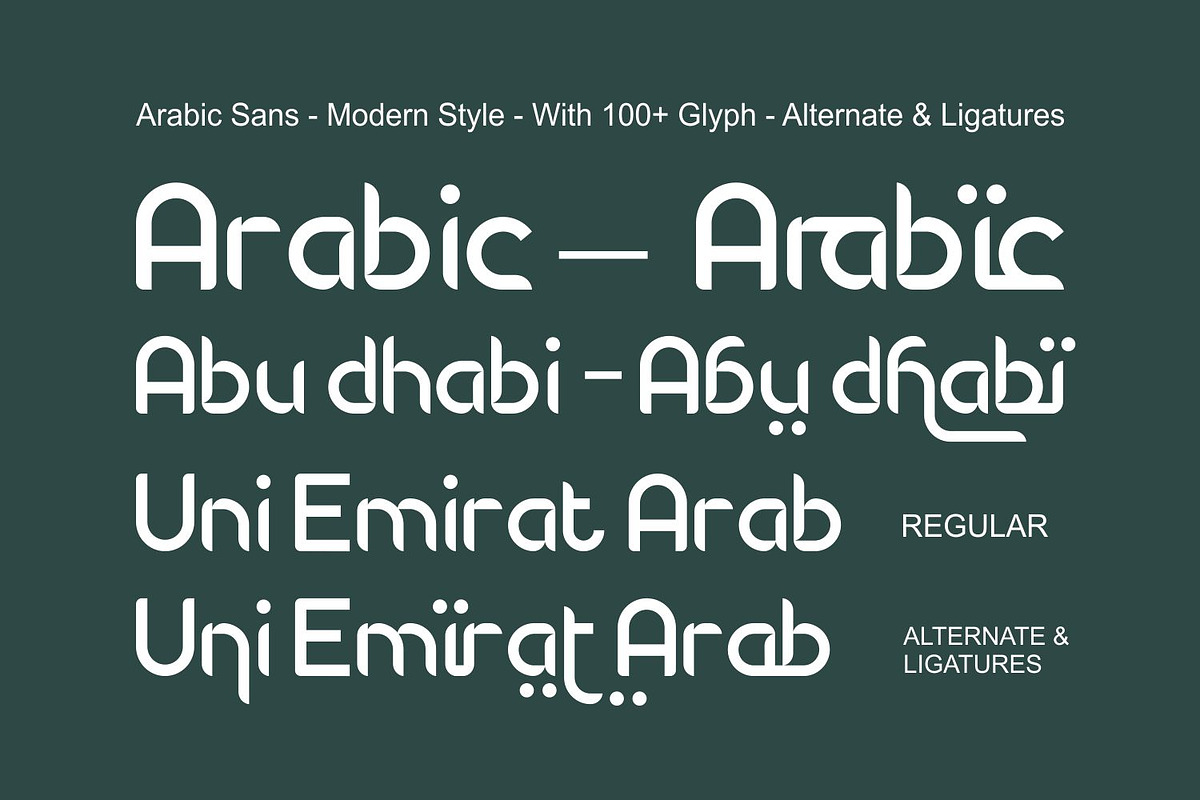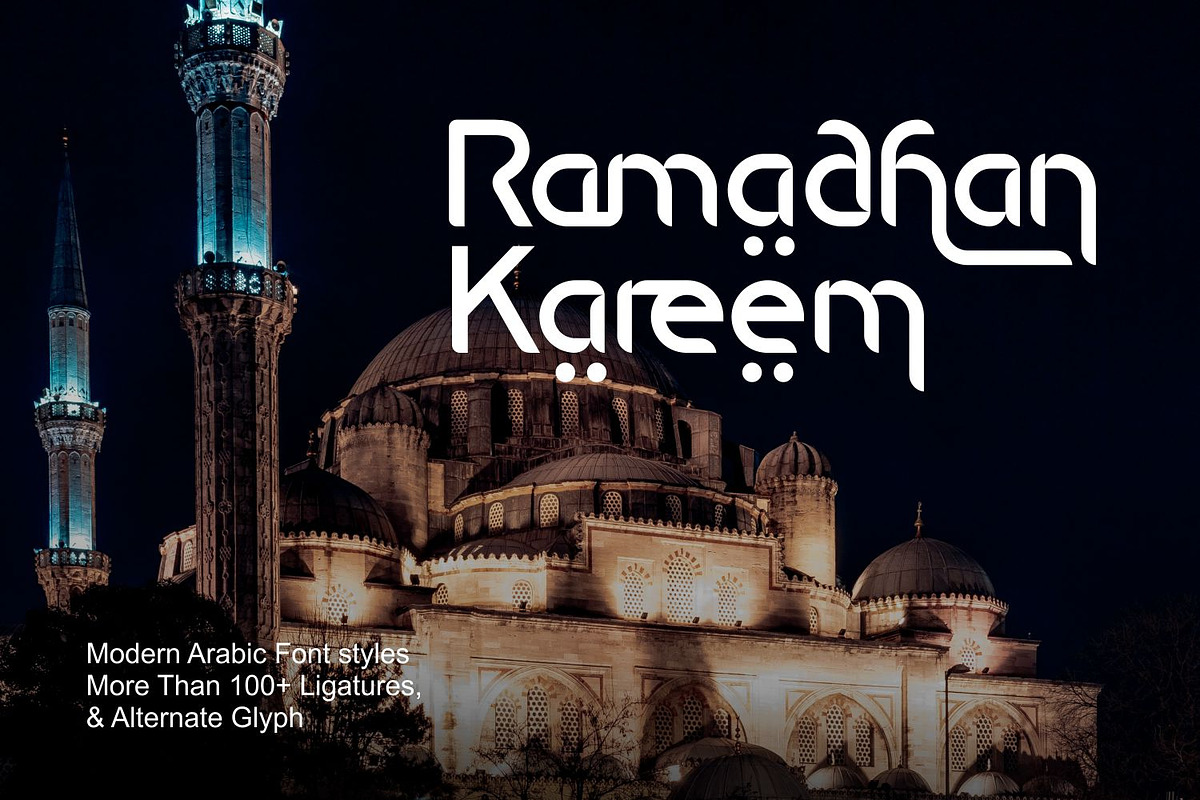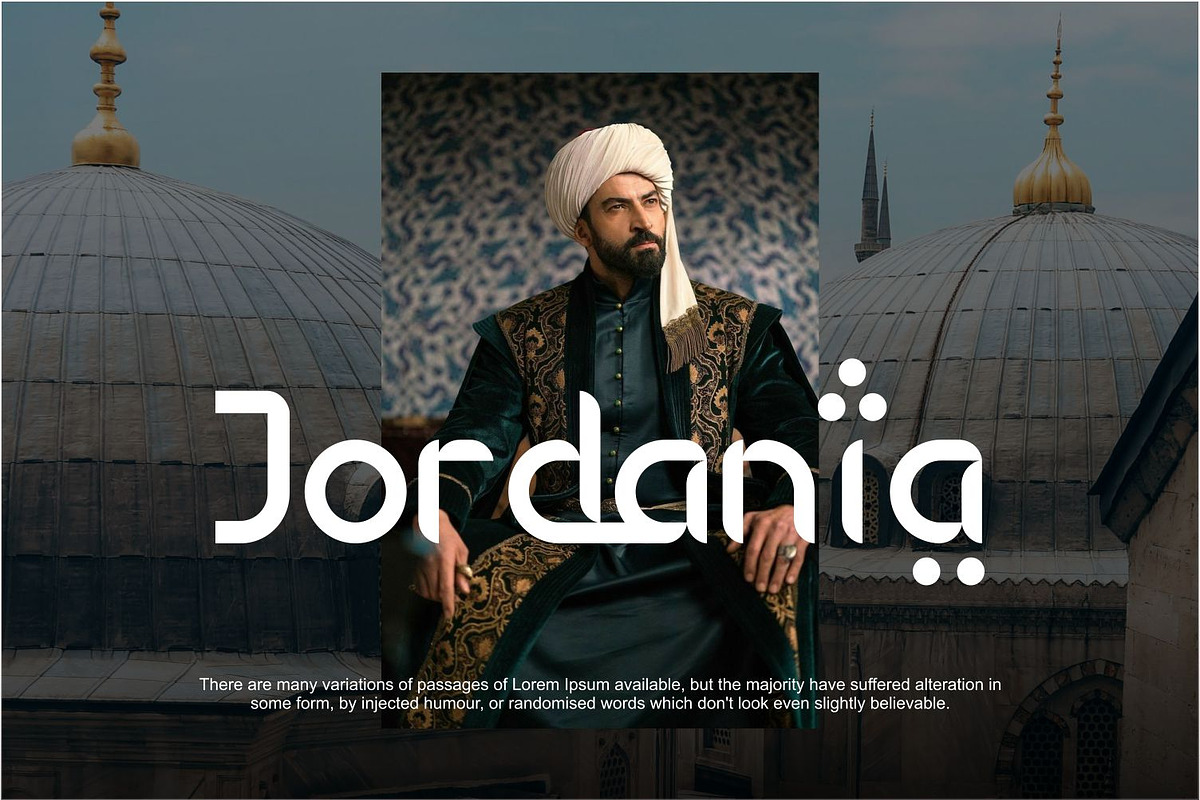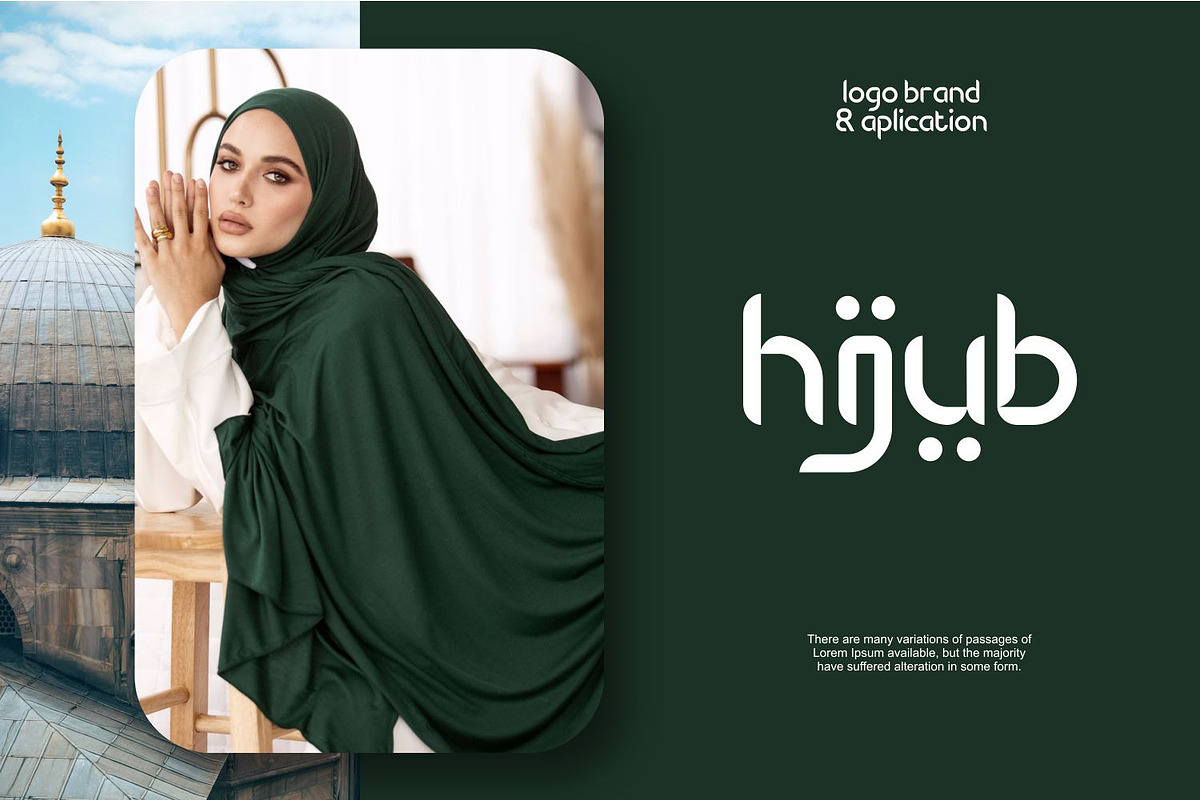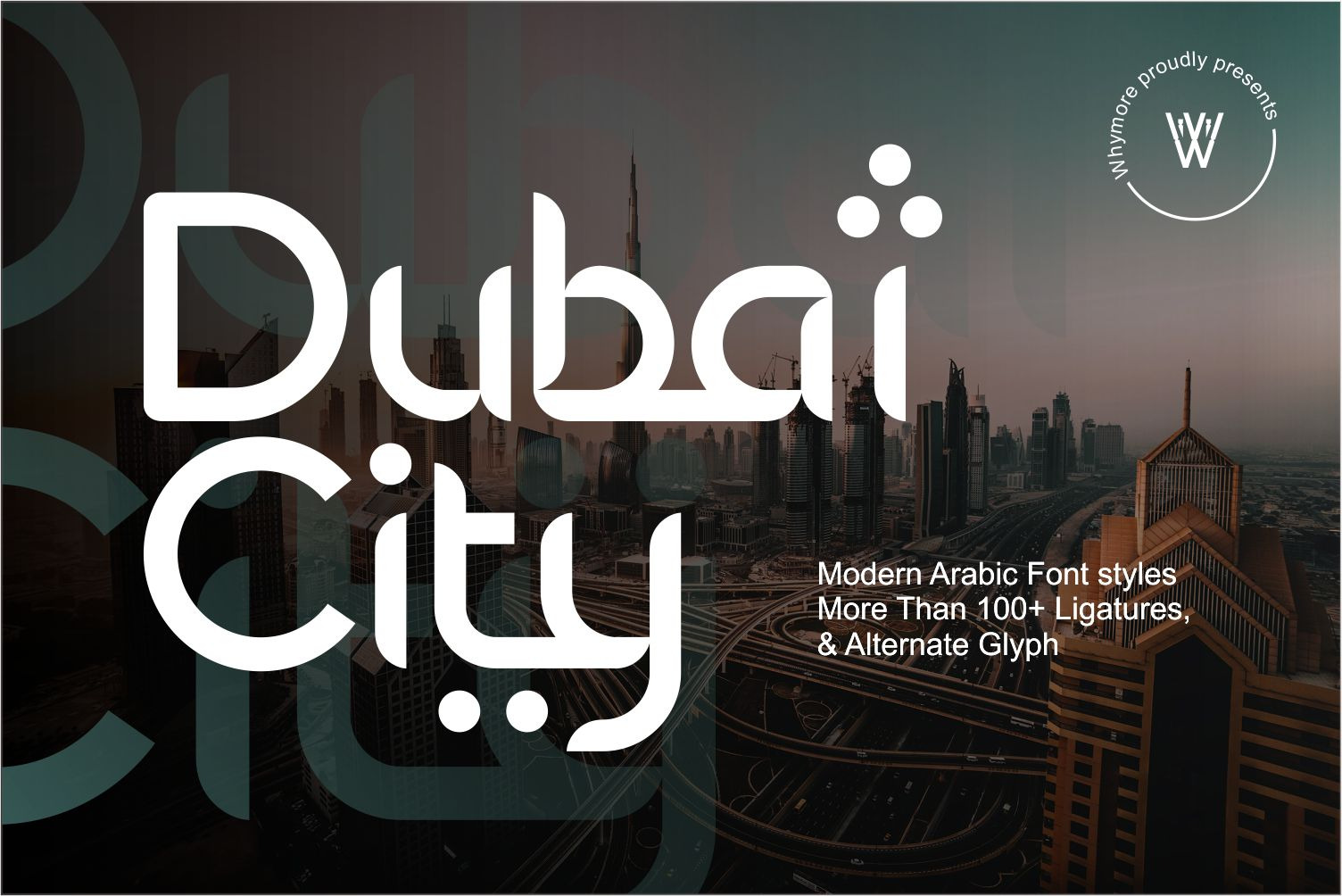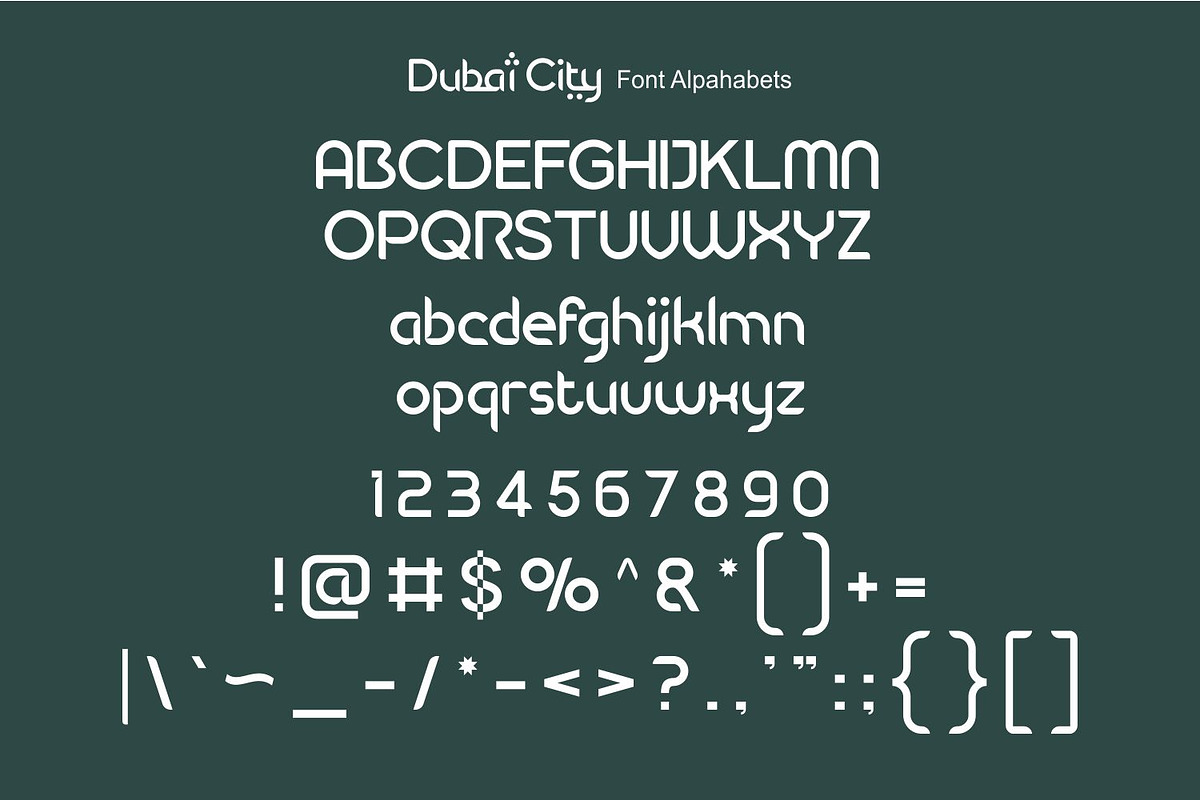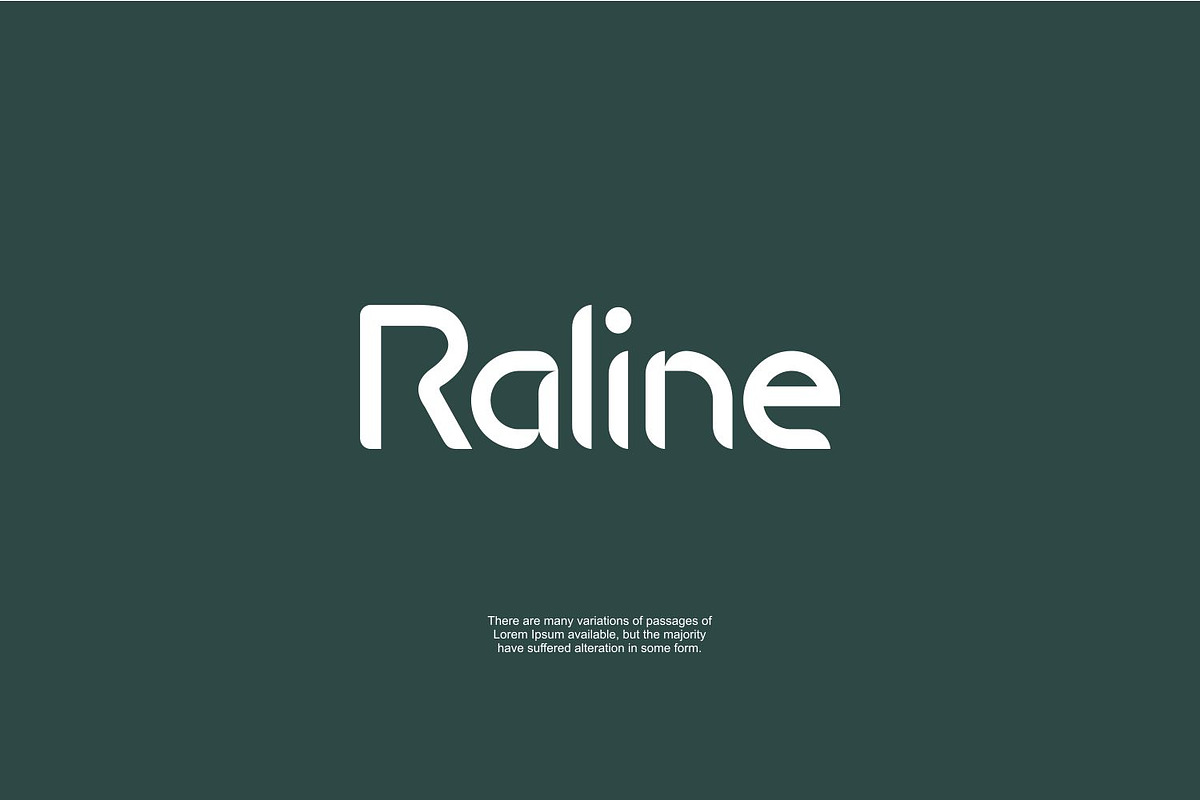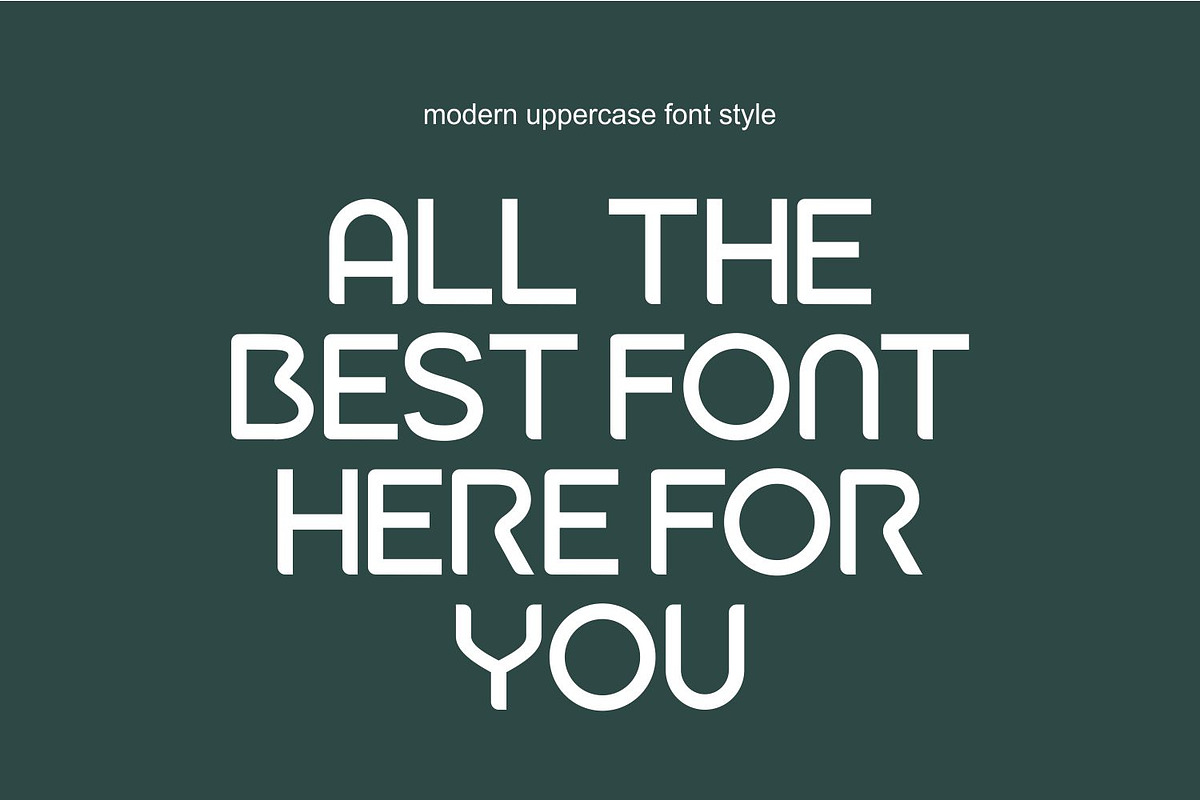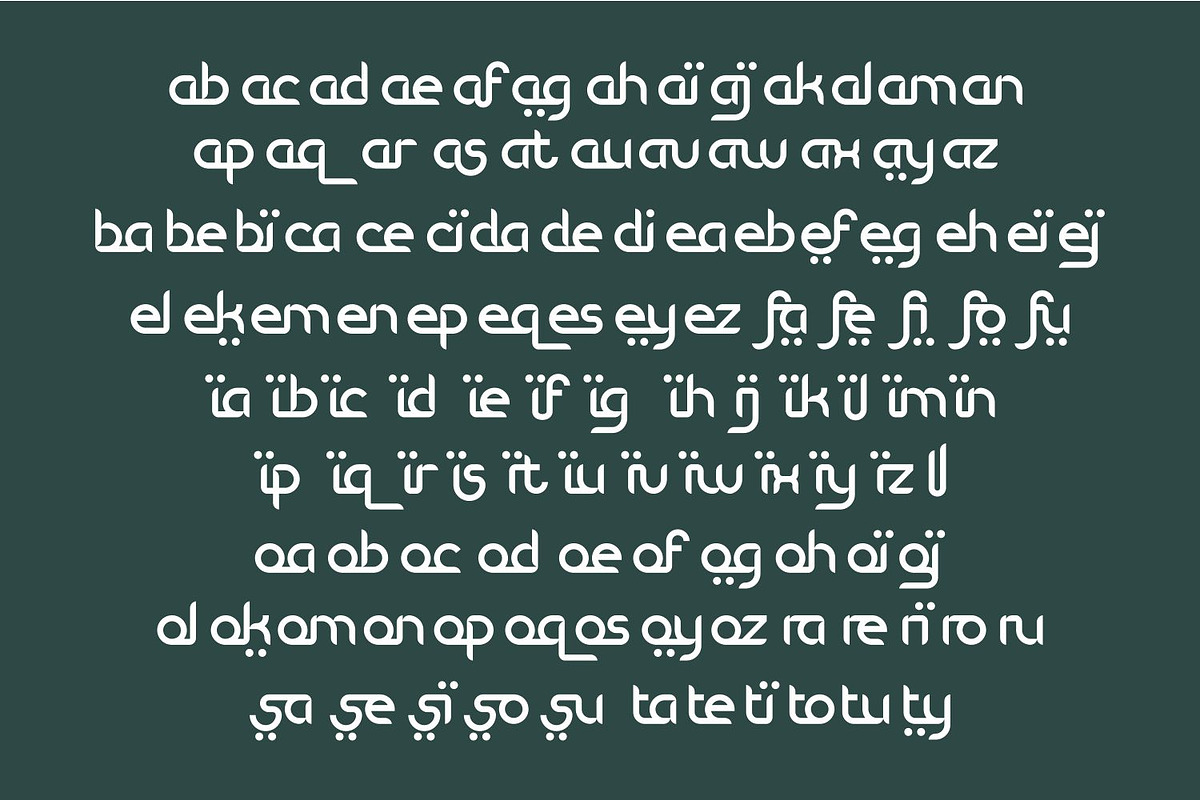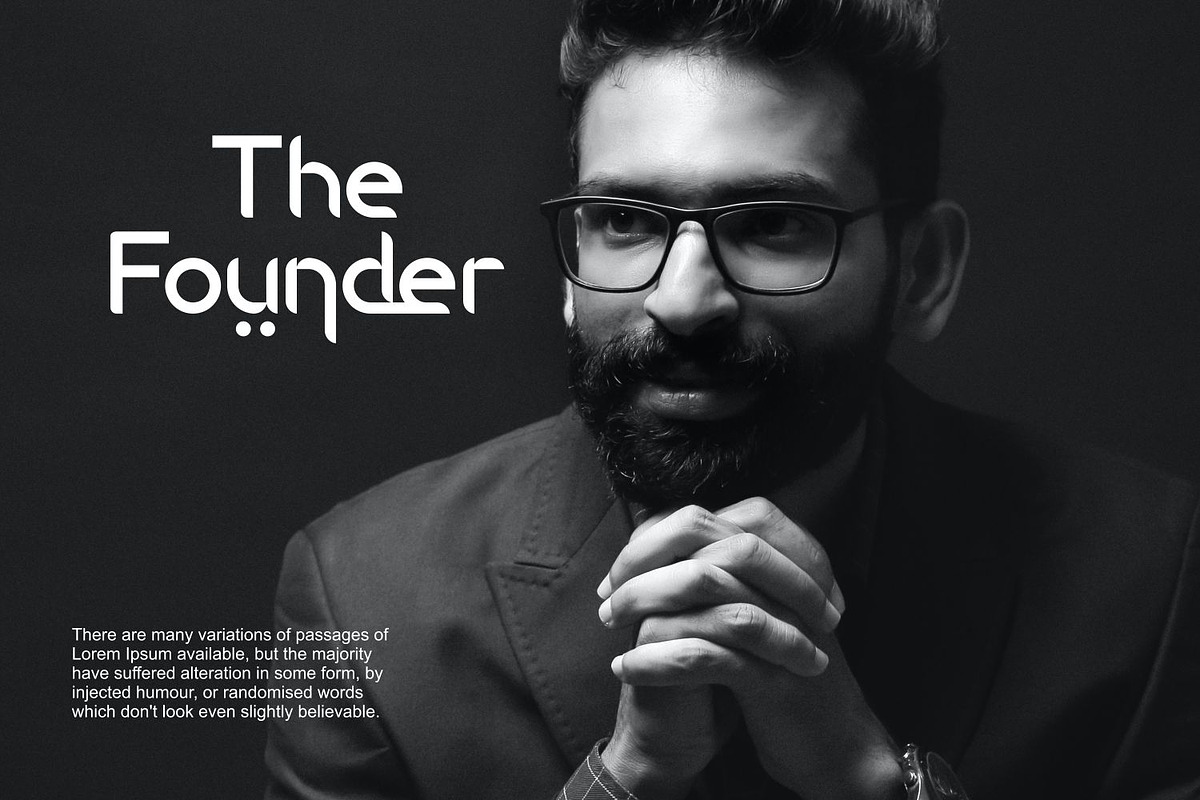
Dubai City | Arabic Font
The Dubai City Arabic Font captures the essence of the vibrant and cosmopolitan city of Dubai with its elegant and contemporary design. Inspired by the rich cultural heritage and modern architecture of the city, this font features intricate Arabic calligraphy with a sleek and streamlined appearance. Whether you’re creating designs for tourism promotions, cultural events, or business branding in Dubai, the Dubai City Font adds a touch of sophistication and authenticity that resonates with the spirit of the city. Its versatile design makes it perfect for a wide range of applications, ensuring your designs reflect the dynamic energy and cultural richness of Dubai.